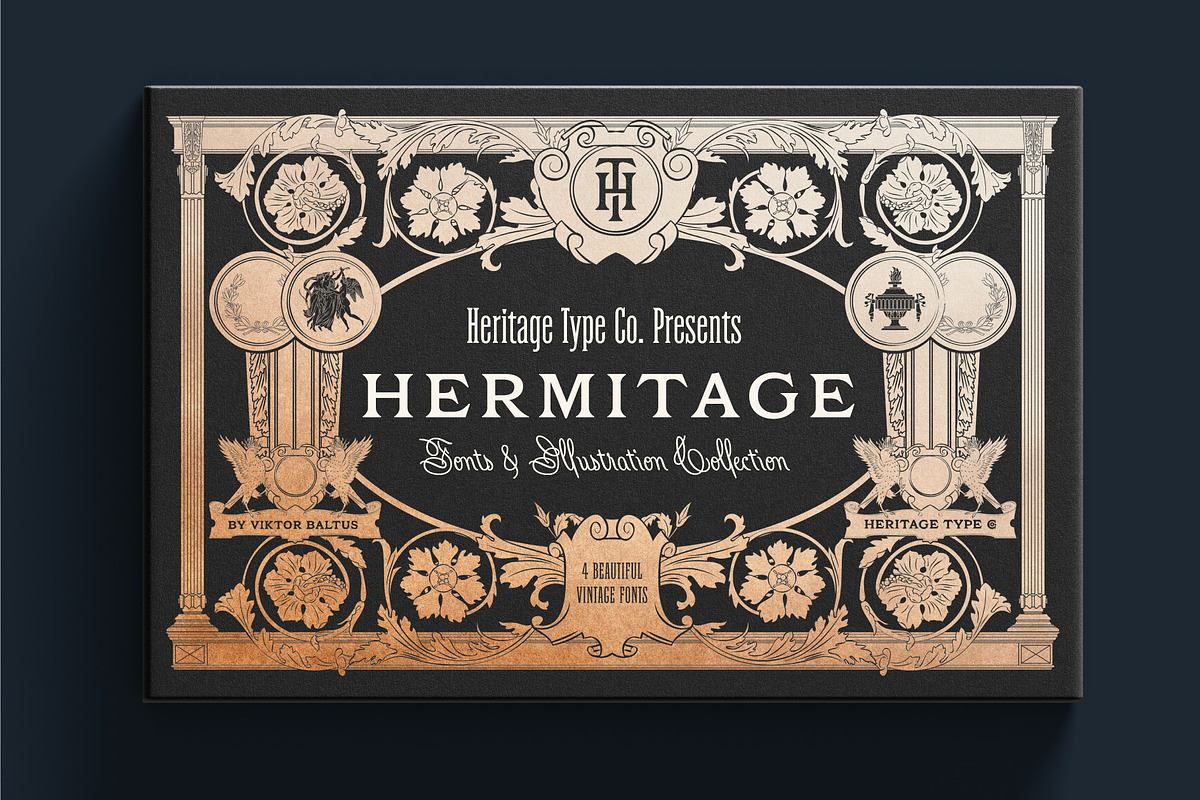
The Hermitage font features sophisticated letterforms with a refined serif style, blending classic beauty with a contemporary edge. Its included illustrations—often botanical, floral, or ornamental—add a delicate and handcrafted touch, allowing you to create cohesive and visually rich compositions. Whether you're building a luxury brand or designing a romantic invitation suite, Hermitage Fonts and Illustrations Free Download offers the tools to make your project visually stunning and full of personality.
Explore its graceful ligatures, stylish alternates, and matching graphics to craft unique and elevated design work. Download Hermitage Fonts and Illustrations Free Download today to test its elegance in your personal projects. For any commercial use, be sure to purchase the appropriate license. Let your creativity flourish with timeless typography and artistic detail.